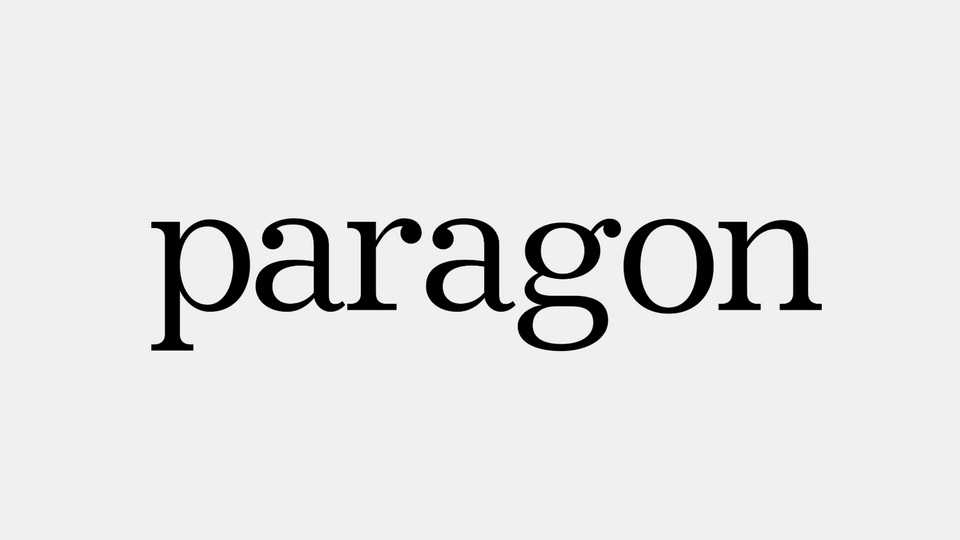
Download Paragon font, a serif family, a revival of the typeface designed in 1935 by Chauncey H. Griffith for Linotype. The Paragon intended to be printed in small size on newspapers and to remain legible despite poor quality printing.
Designer: Cédric Rossignol Brunet